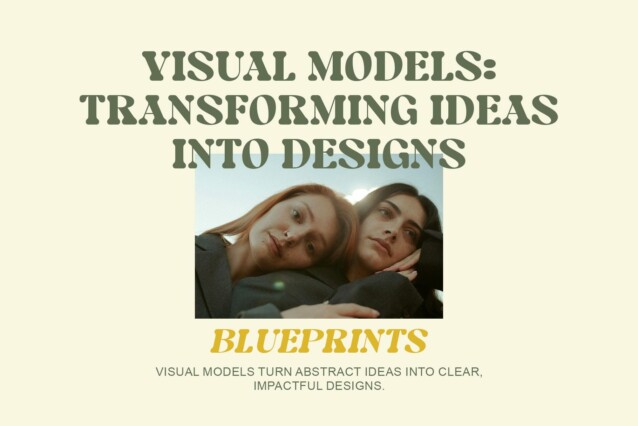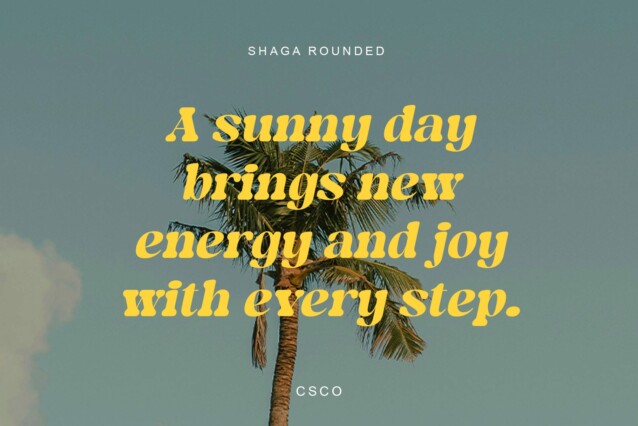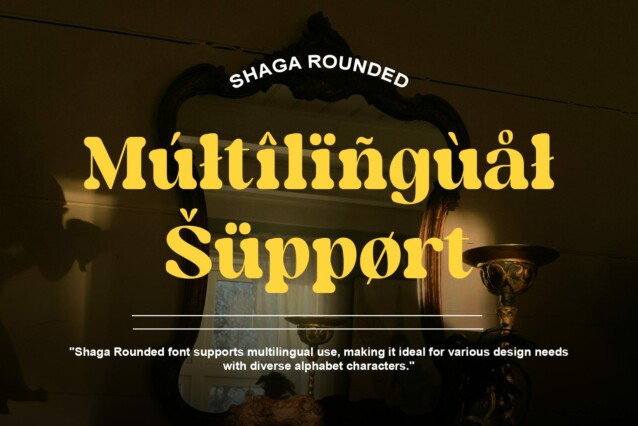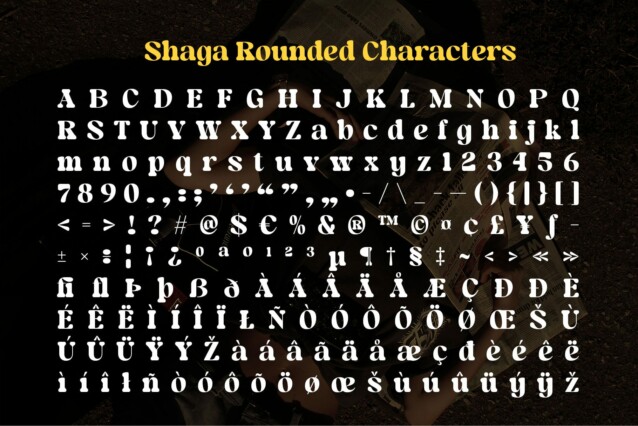
Shaga Rounded Font
Shaga Rounded Font is a striking serif font that blends classic slab serifs with soft, rounded shapes to create a design that is both strong and approachable. The bold slab serifs provide a stable and grounded impression, while the rounded curves soften the edges, giving the font a friendly, warm feel. This harmonious combination of strength and softness evokes a nostalgic retro vibe while maintaining a modern, relevant appeal.